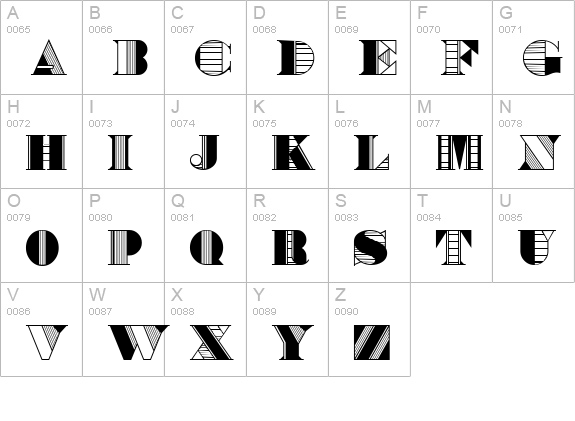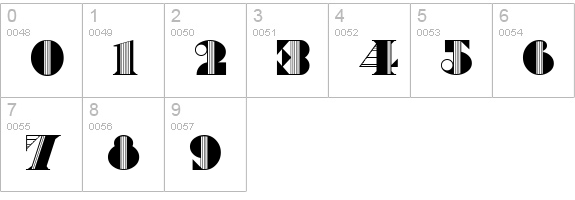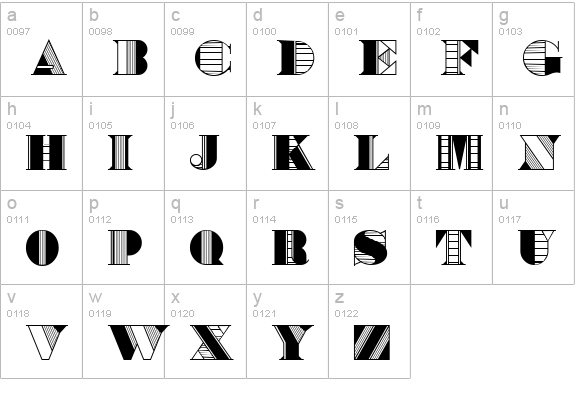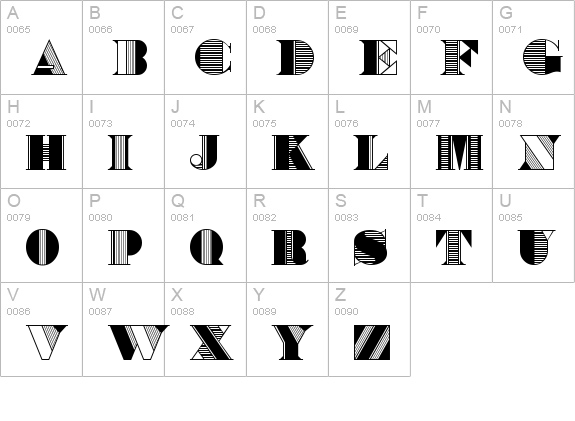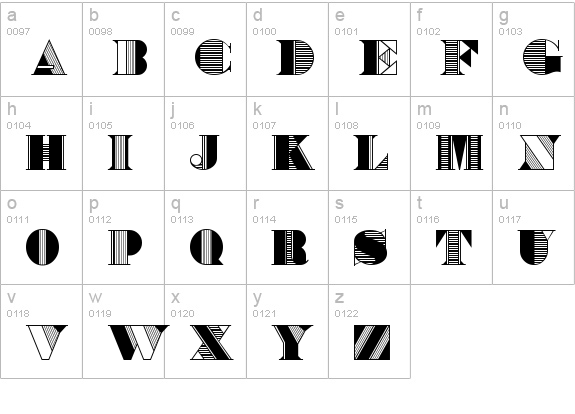
Partager Caps NF font is a stunning display typeface that exudes elegance and sophistication. With its bold, uppercase letterforms and delicate serifs, this font is perfect for adding a touch of refinement to any design project. What sets Partager Caps NF font apart is its versatility. Whether used for headlines, logos, or even body text, this font commands attention and conveys a sense of timeless beauty. Its clean lines and balanced proportions make it easy to read, ensuring that your message is delivered with clarity and impact. One of the best things about Partager Caps NF font is that it is free. Yes, you read that right! This high-quality font is freely available to download at FontsMarket.com. No need to worry about licensing fees or restrictions - you can use this font for personal or commercial projects without any limitations. The designers of Partager Caps NF font have put careful thought into every detail, resulting in a truly exceptional typeface. Each letter is meticulously crafted, with refined curves and impeccable spacing. The result is a font that not only looks amazing on screen but also prints beautifully, ensuring that your designs always look their best. So, why wait? Enhance your projects with the elegance and versatility of Partager Caps NF font. Download it for free today at FontsMarket.com and unlock a world of endless possibilities for your designs.